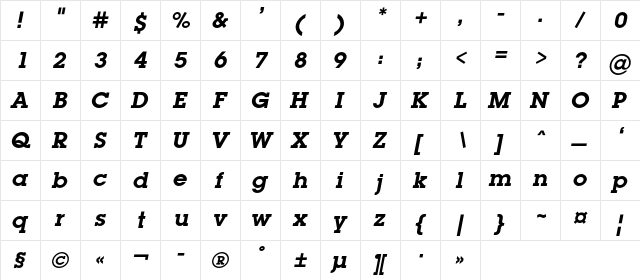
LugaBookC Bold Italic
Design Context for LugaBookC Typeface
LugaBookC takes a measured approach to typography — its balanced proportions and neutral character make it a reliable workhorse for both digital and print work. Its italic angle brings a sense of urgency and motion to the letterforms. The heavy weight commands attention and anchors typographic hierarchies.